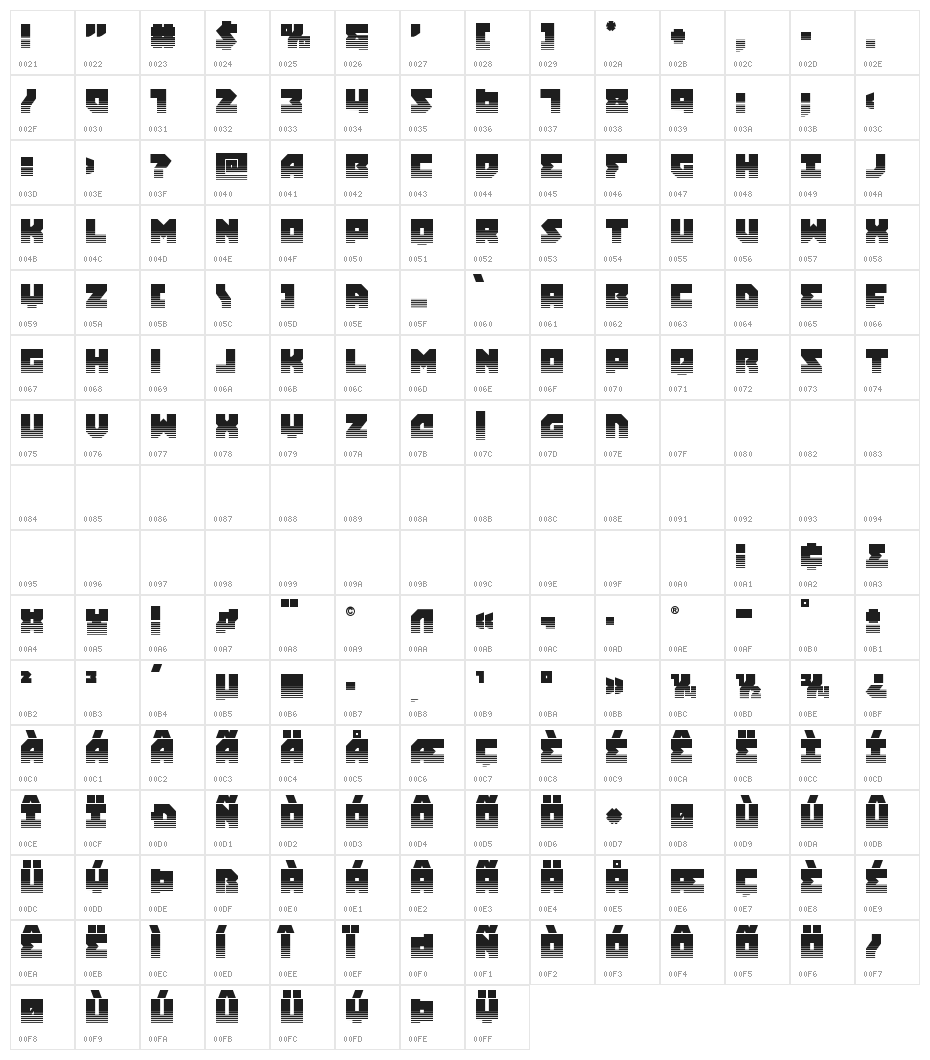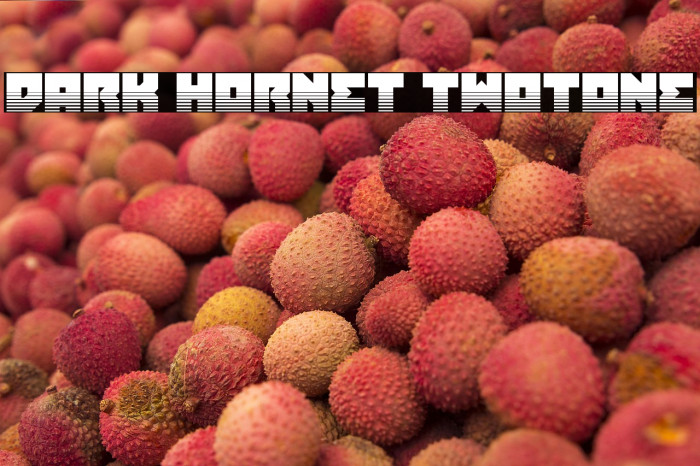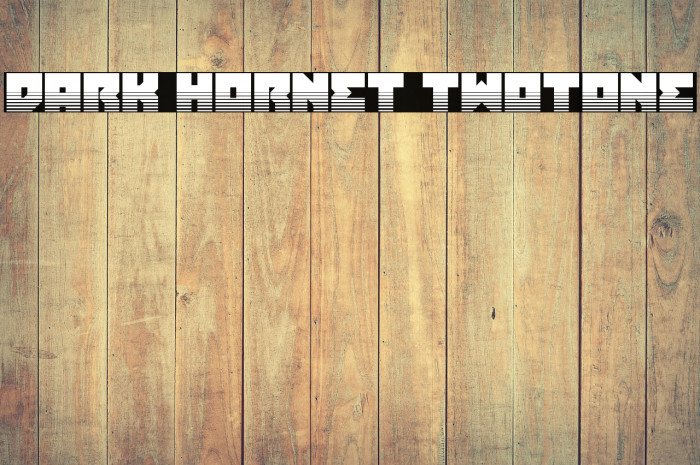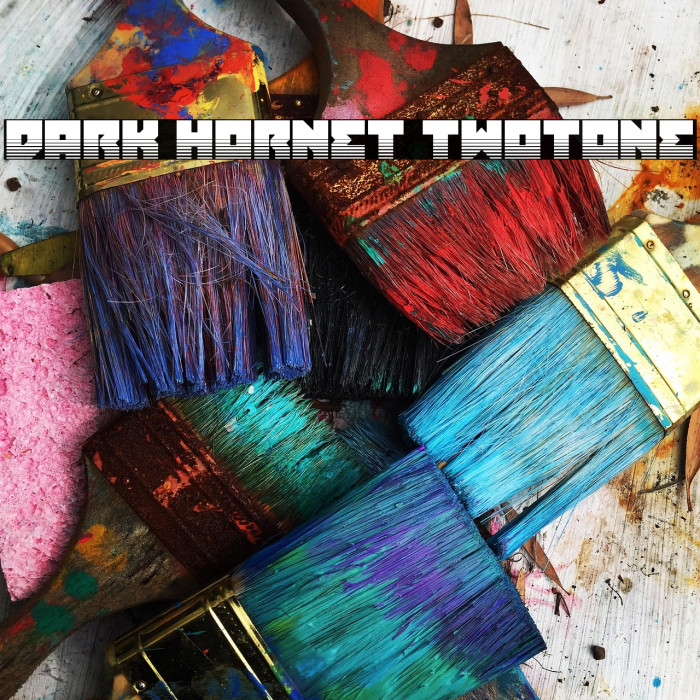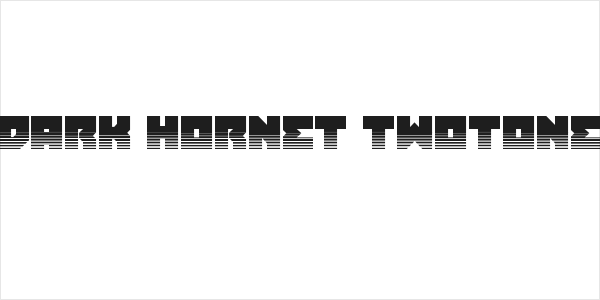
Dark Hornet Twotone Font
Dark Hornet Twotone Description
This font features a bold, futuristic design with a distinctive two-tone effect. Each character is composed of solid black upper sections and striped lower sections, creating a dynamic and eye-catching appearance. The geometric shapes and sharp angles give it a modern, tech-inspired look, making it ideal for projects that require a strong visual impact. The uppercase and lowercase letters maintain a consistent style, while the numbers and special characters integrate seamlessly into the overall design.
| Overall Style | Futuristic, Tech-inspired |
| Proposed Projects | Ideal for sci-fi themed posters, video game titles, tech branding, and futuristic event invitations. |